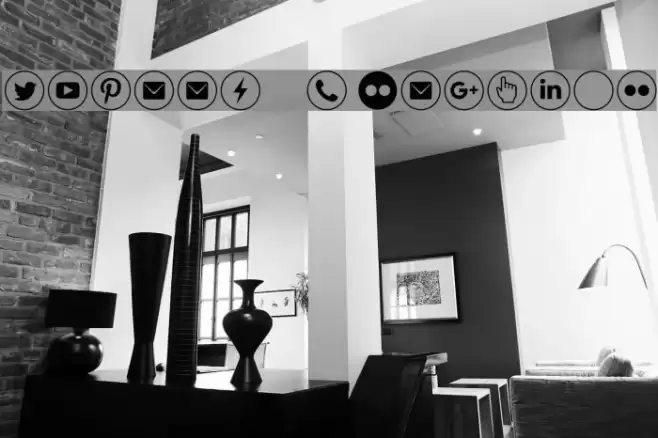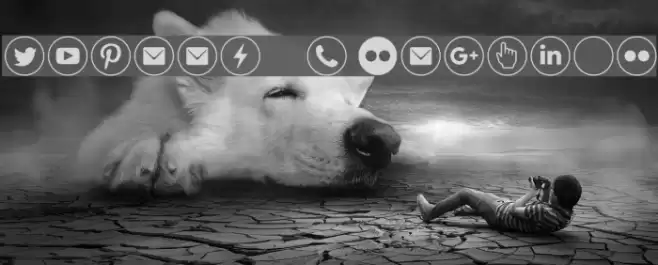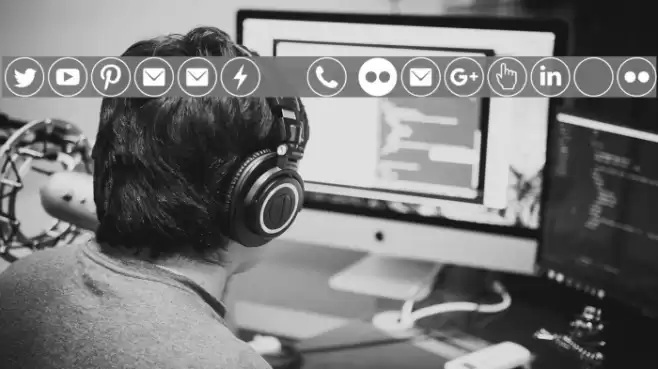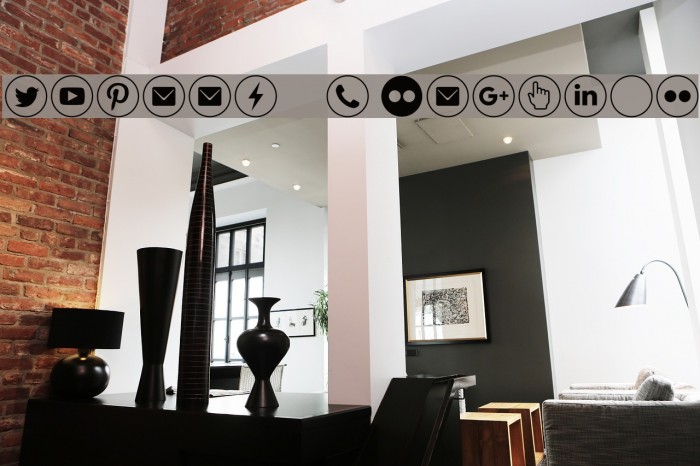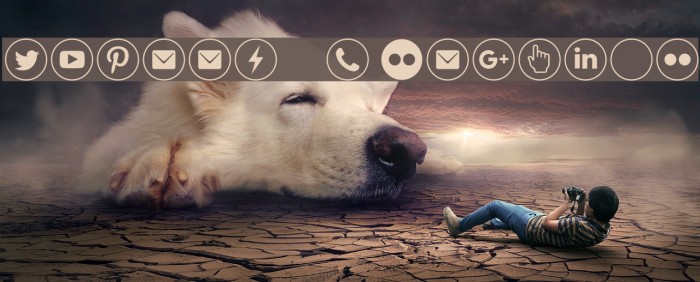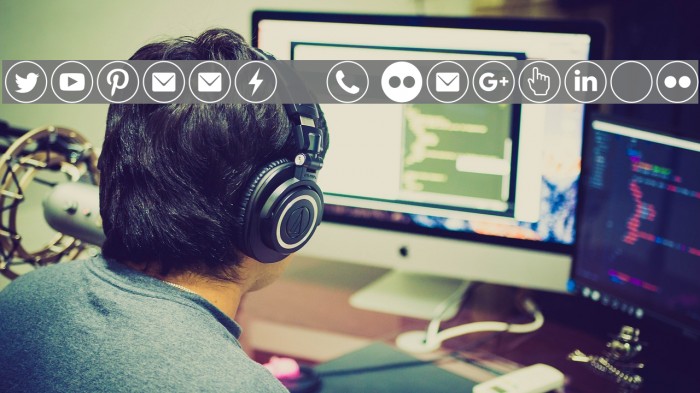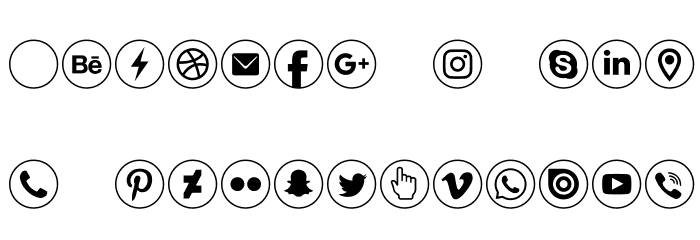
typeecon Regular Font
typeecon Regular Description
A set of minimalist, circular social media and communication icons, available in both solid and outlined styles, featuring clean and simple glyphs for popular platforms and symbols.
Minimalist circular social media and communication icon set from Dingbats fonts.
- Proposed Projects: Websites, mobile apps, business cards, presentations, social media graphics.
- Use Case: Icons, UI elements, navigation, branding.